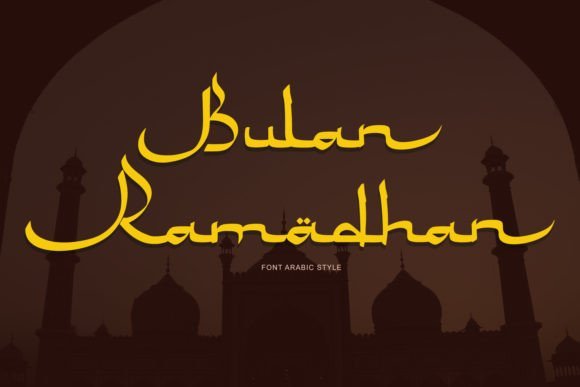
The Magic of Arabic Typography: Unveiling Bulan Ramadhan Font
Have you ever been inspired by the intricate patterns and elegant calligraphy of Arabic script? As a designer, I know the thrill of stumbling upon a unique font that transports you to a world of creativity and possibility. For me, that moment came when I discovered Bulan Ramadhan Font, a cool display font that masterfully mimics Arabic Letters.
Bulan Ramadhan Font is more than just a font – it’s a gateway to exploring Islamic and Oriental culture through design. Perfect for creating stunning visual elements, this font is an invaluable asset for designers seeking to add a touch of authenticity and flair to their projects. Whether you’re working on a Islamic-themed website, a cultural festival brochure, or a traditional-themed graphic novel, Bulan Ramadhan Font is the perfect companion to bring your vision to life.
Bulan Ramadhan Font Key Features
- Font Type: This font is a beautiful, hand-drawn script font, specifically designed for the holy month of Ramadan.
- Unique Characteristics: The font features intricate details, elegant lines, and a beautiful calligraphy style, making it perfect for Ramadan-themed designs, invitations, and more.
Bulan Ramadhan Font Review
As a designer, I was excited to dive into the Bulan Ramadhan Font, a custom-designed font for the holy month of Ramadhan. Upon closer inspection, here’s what I think:
- Unique and culturally relevant design: The font incorporates traditional Islamic calligraphy elements, making it a great choice for Ramadan-related content.
- Clear and legible: Despite its intricate design, the font remains easy to read, even at smaller font sizes.
- High-quality rendering: The font renders well on various devices, with minimal issues or glitches.
- Limited character set: The font may not include the full range of characters required for non-English text, which could be a limitation for some users.
- Not ideal for body text: While the font is great for headings and titles, it may not be the best choice for large blocks of text due to its ornate design.
Overall, the Bulan Ramadhan Font is a well-designed, culturally relevant choice for Ramadan-related content. While it has some limitations, its unique design and clear readability make it a great option for headings and titles. I would recommend it for specific use cases, such as decorative headings or titles, but not for large blocks of text.
Use the Bulan Ramadhan Font to create visually appealing designs for Ramadan-themed materials, such as posters, flyers, and social media graphics.
The Bulan Ramadhan Font is ideal for creating designs related to Ramadan, such as:
- Posters and flyers for Ramadan events and activities.
- Social media graphics and posts for Ramadan-themed content.